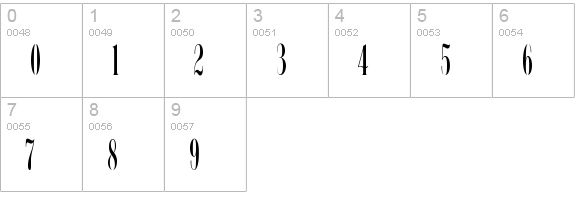
Romantica Std Extra Condensed Font Details
Romantica Std Extra Condensed is a distinctive, condensed-width variant in the Romantica typeface family \xE2\x80\x94 well suited to design and typography projects.
Romantica Std Extra Condensed font exudes elegance and sophistication with its sleek and modern design. This stylish typeface is perfect for adding a touch of romance and charm to any project. Its extra condensed form allows for a high level of readability while conserving space, making it ideal for headlines, titles, and branding materials. And the best part? Romantica Std Extra Condensed font is available for free download at FontsMarket.com! Whether you're a designer looking to enhance your creations or a business owner seeking a unique font for your branding, this font is a versatile and beautiful choice. Don't miss out on the opportunity to add a touch of romance to your designs with this exquisite typeface. Download Romantica Std Extra Condensed font today and elevate your projects to new levels of sophistication and style.